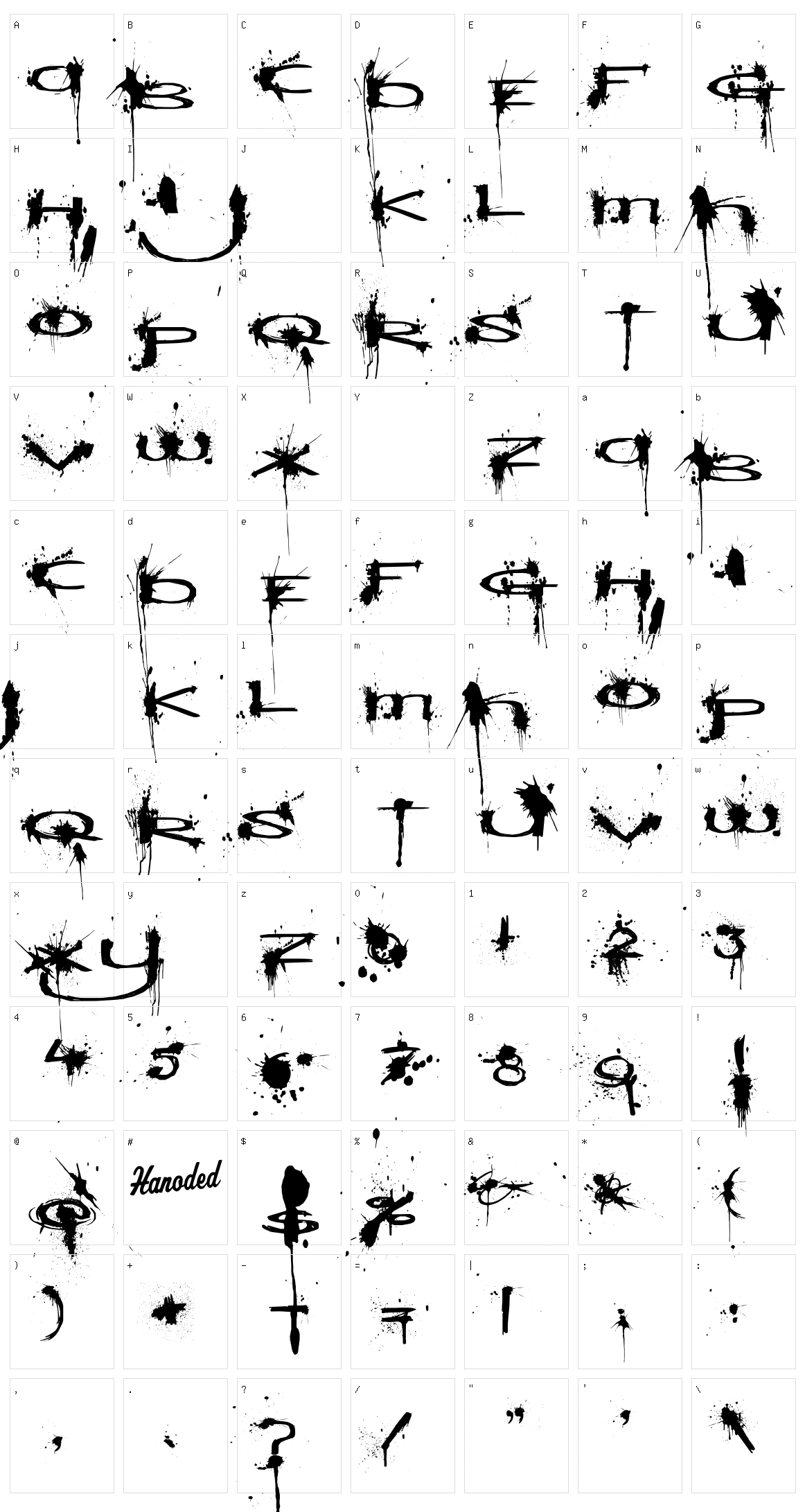
The free font Windshield Massacre is carefully designed by Hanoded, showcasing a thoughtful balance of creativity and usability and falls under the Trash font style. When you download the ZIP file, it contains only 1227.99 KB of font files, making it lightweight and quick to download. Please review the license details below to understand permitted usage and distribution rights. If license information is not available, we recommend using this font for personal projects only or contacting the author directly for commercial usage permissions.